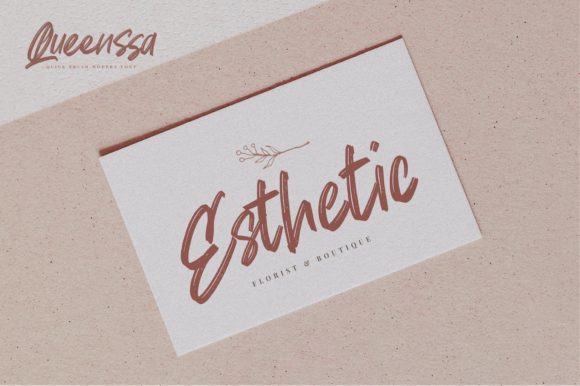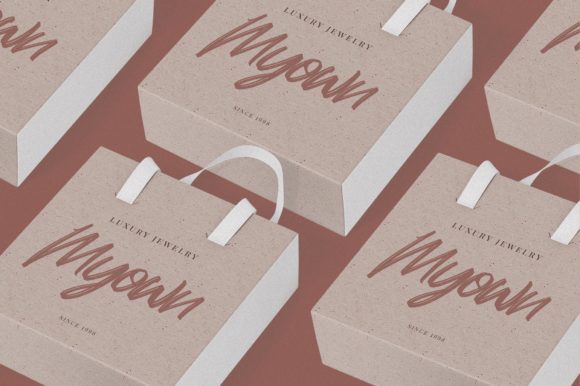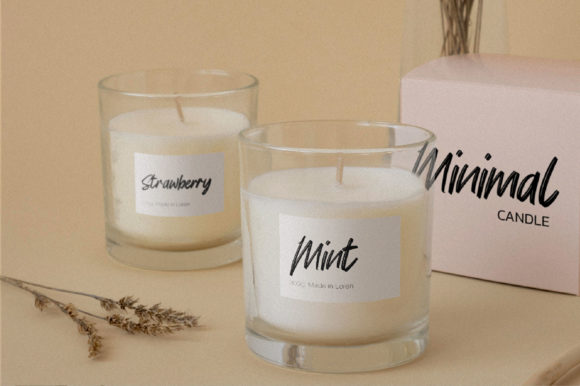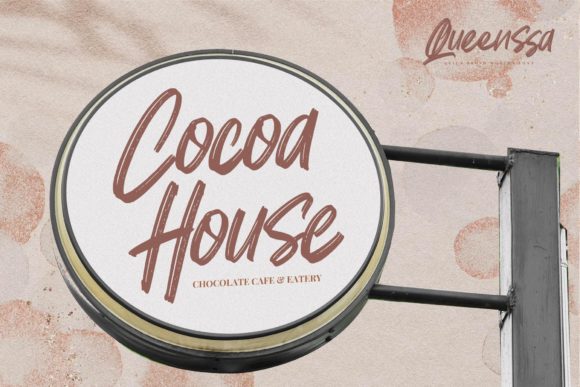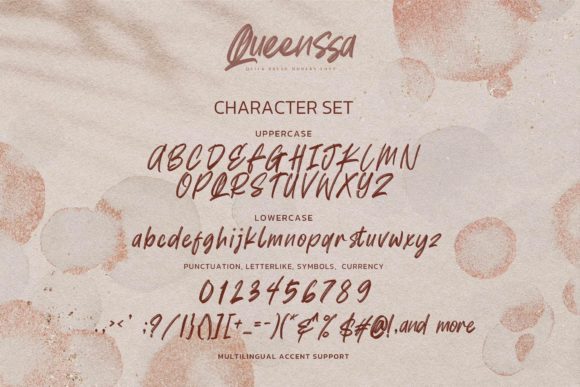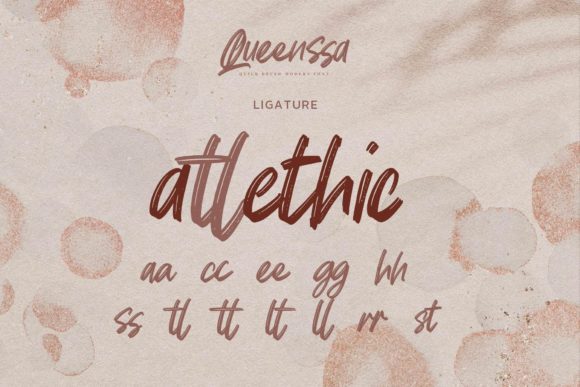
Introduction to Queenssa Font
You know that feeling when you’re brainstorming ideas for a creative project and you stumble upon the perfect design element that takes it to the next level? For many designers, this moment is what makes all the hard work worth it. It’s the spark that ignites a vision and sets your imagination ablaze. For us, that moment came when we discovered the enchanting Queenssa Font.
This ravishing handwritten font has captured the hearts of many designers and artists, and it’s easy to see why. With its relaxed and brushed style, it’s perfect for creating gorgeous wedding invitations, beautiful stationary art, and eye-catching social media posts. Whether you’re working on a free download or a high-quality design resource, the Queenssa Font is a valuable addition to any creative project.
- Perfect for designers and artists seeking a unique, modern aesthetic
Honest Review: Queenssa Font
As a designer, I’m always on the lookout for high-quality design resources to elevate my creative projects. Recently, I stumbled upon the Queenssa Font, which has been making waves in the design community. I decided to give it a try and see if it lives up to the hype.
Here are some things that work well for the Queenssa Font:
- ✨ Unique and stylish design aesthetic that’s perfect for modern creative projects.
- ✨ Smooth and legible font that’s great for both body and headline text.
- ⚠️ Limited character set, which may not be suitable for projects that require a wide range of characters.
- ⚠️ Not ideal for designs that require a transparent background, as the font may not render well in certain scenarios.
Overall, I’m impressed with the Queenssa Font, but I wouldn’t recommend it for every project. If you’re looking for a stylish and modern font for your creative project, it’s definitely worth checking out. Just be aware of its limitations and make sure it fits your design needs.
Common Use Cases for Queenssa Font
The Queenssa Font is a versatile design resource that can be used in a variety of creative projects, including graphic design, digital art, and print design. It’s a great choice for designers who want a high-quality, free download font that can add a touch of elegance to their design.